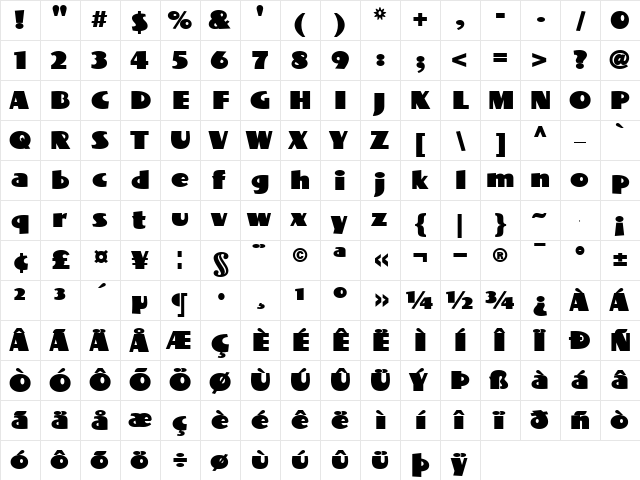
BottleKaps S Expanded Regular
Design Context for BottleKaps S Expanded Typeface
BottleKaps S Expanded offers clean, dependable letterforms without strong stylistic allegiance, making it a practical choice for designers who need flexibility.